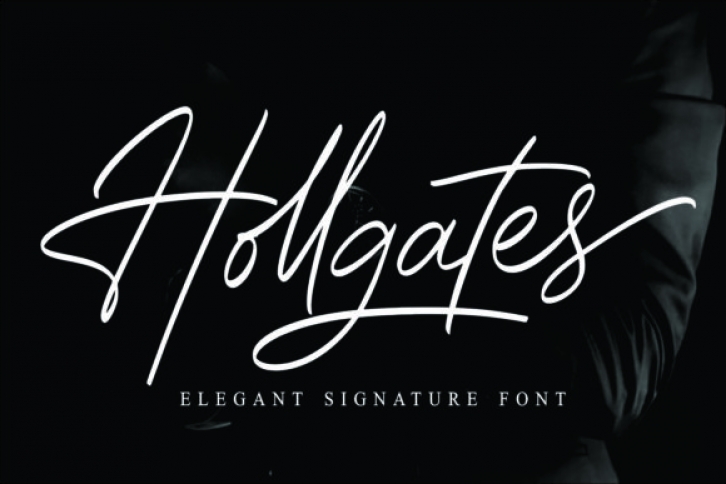
Hollgates is a casual and flowing script font that emanates simplicity and elegance. Its stylish alternates and ligatures make this font the perfect match for any project.